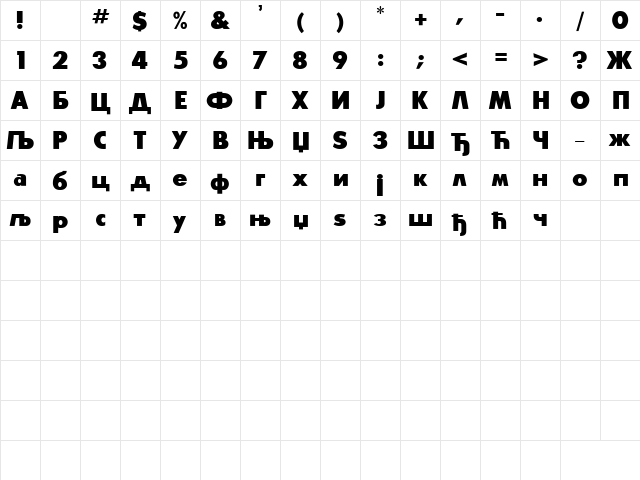
HelveticaCirExtra Bold Font Preview
HelveticaCirExtra Bold
Design Context for HelveticaCirExtra Typeface
HelveticaCirExtra takes a measured approach to typography — its balanced proportions and neutral character make it a reliable workhorse for both digital and print work. Its bold stroke weight gives it real presence on the page.